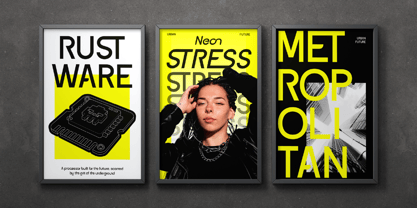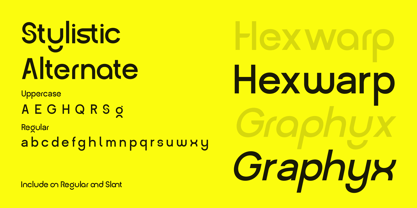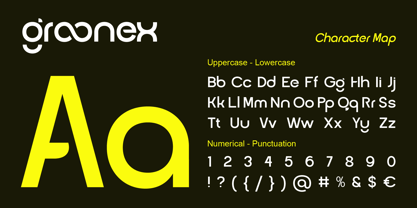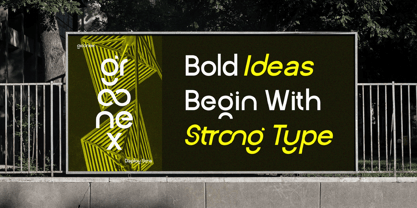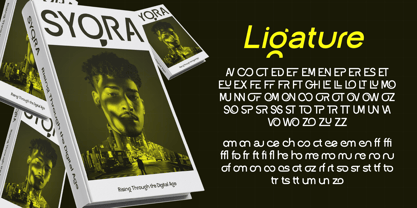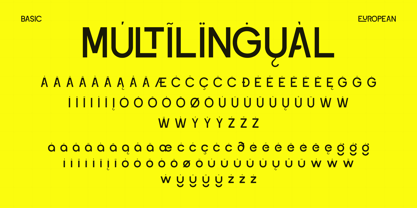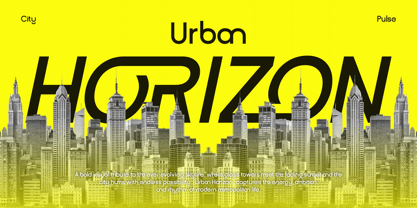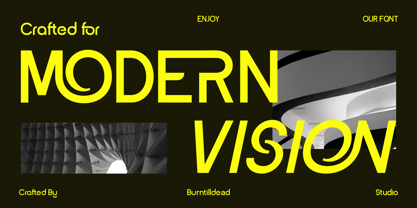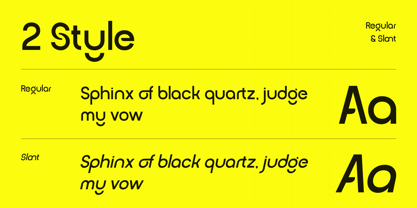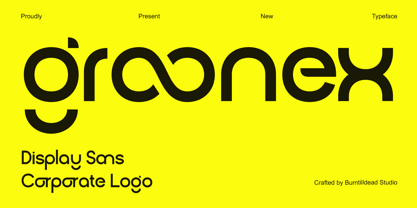
Groonex
by Burntilldead
The Groonex Font Family was designed by Eric Kurniawan and published by Burntilldead. Groonex contains 2 styles and family package options. More about this family
Groonex, a modern display sans built with logo design in mind. Clean, bold, and stylish, this font is made to give your brand a strong and memorable identity. Its unique shapes and smooth flow make it stand out, while still keeping that professional and versatile vibe. With 2 styles (Regular & Slant), Groonex is perfect for creating sleek wordmarks, catchy headlines, and corporate branding that leaves a lasting impression. Whether you’re designing a startup logo, a creative agency identity, or a bold packaging design, Groonex has the right balance of modern aesthetics and readability. If you’re looking for a font that instantly elevates your logo or brand presence, Groonex is the one to keep in your toolkit.